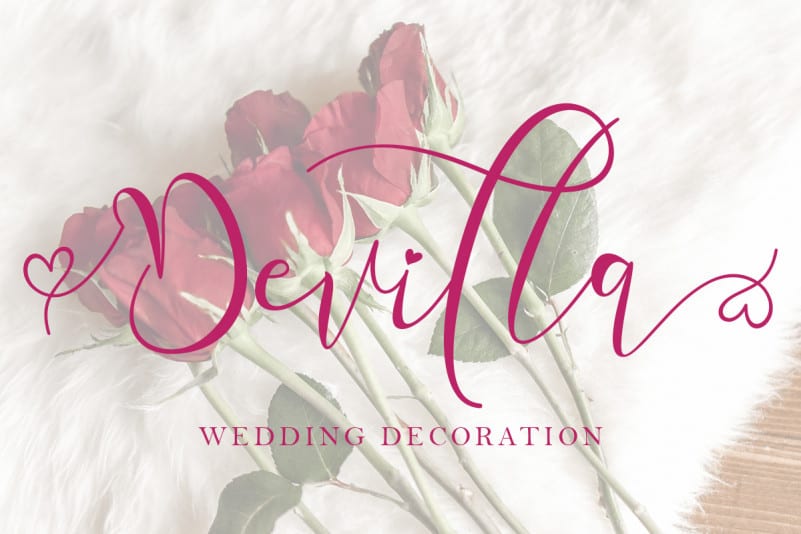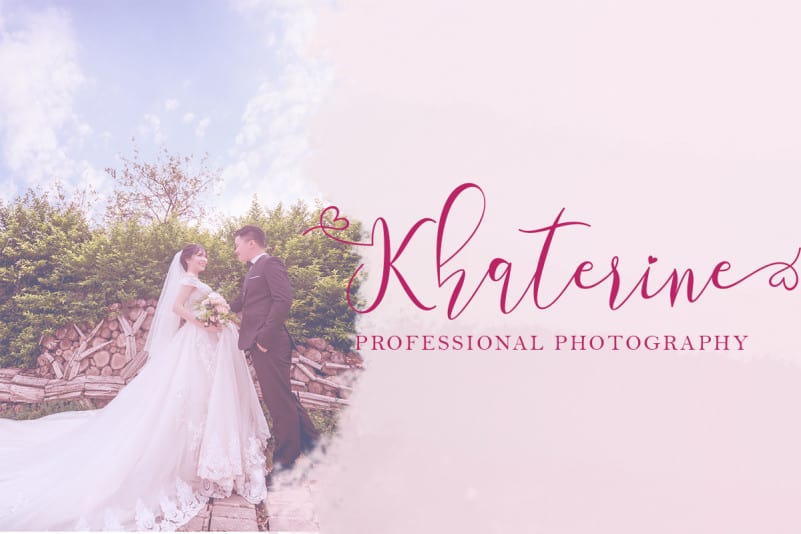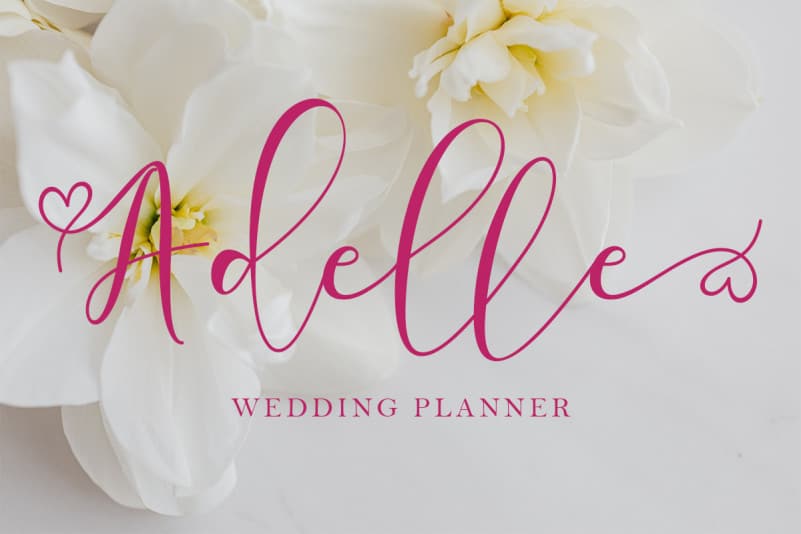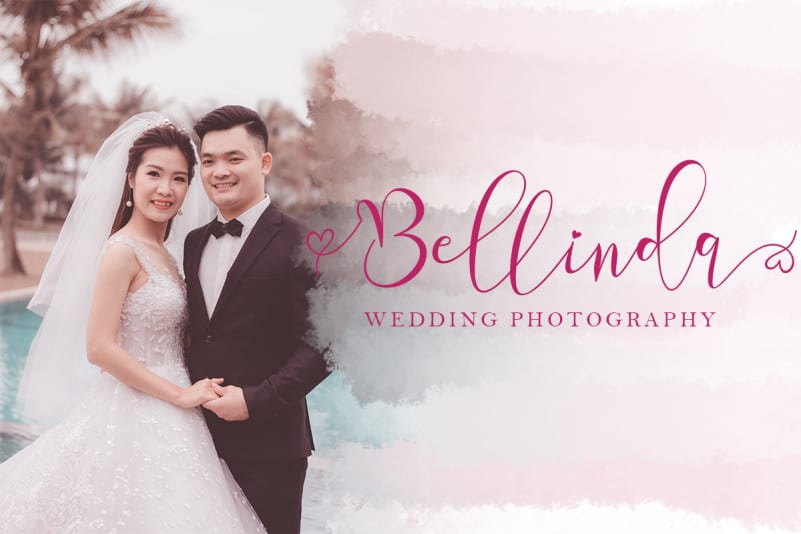
Alletha Calligraphy Font
This font is named “Alletha Calligraphy Font“. Alletha is a modern handwritten script. This font is perfect for all types of work. This font is of high quality and very attractive. This font can be used for wedding events (wedding invitations, wedding party events, wedding decorations, and other designs). It is also very suitable for promoting the products or services you want to offer. To accompany your trip and at the same time to capture vacation moments with your closest friends. To promote your business (promotion of villas, hotels, or other vacation spots. Not only that, “Alletha” can also be used for promotion of interior space businesses or others.